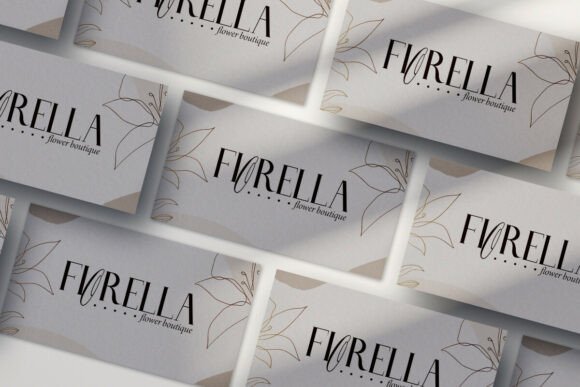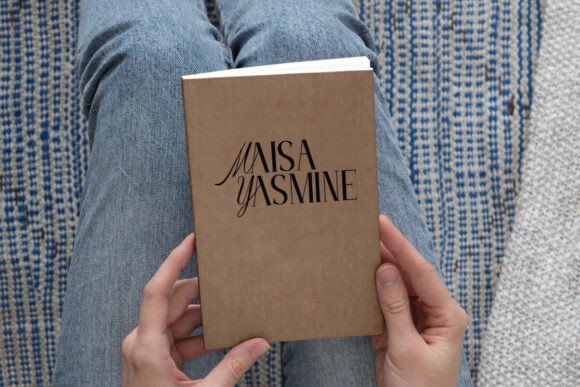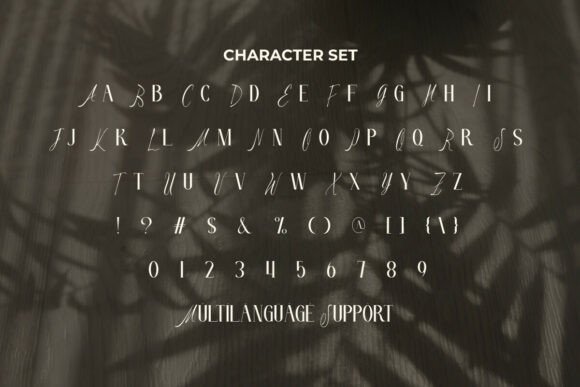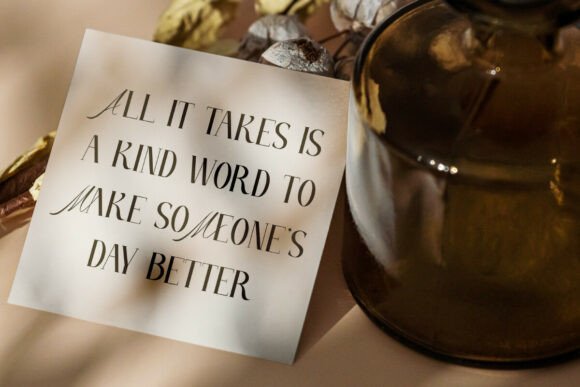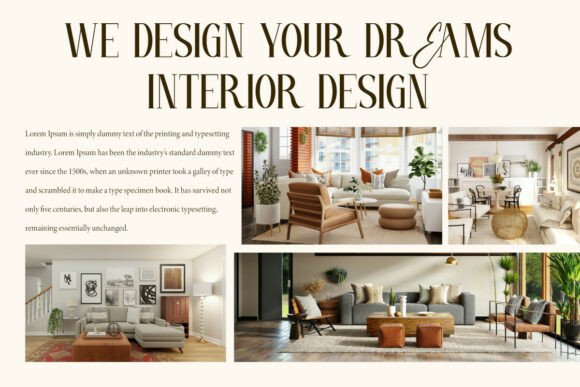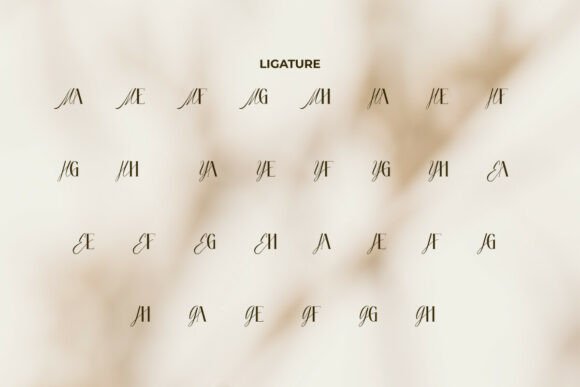
Introduction to Maisa Yasmine Font
Have you ever been stuck on a creative project, searching for the perfect typography to convey the emotions and tone you want to express? That’s exactly where Maisa Yasmine Font comes in – a stunning display font duo that effortlessly combines classic and modern styles to create a timeless elegance that’s hard to resist.
As designers, we know that typography is the soul of any design. It’s what makes a project truly shine and connects with our audience on a deeper level. That’s why having access to high-quality design resources like Maisa Yasmine Font is invaluable. This beautiful script font is perfect for adding a personal touch to your work, whether it’s crafting wedding invitations, branding luxury products, or designing social media content.
Key Features of Maisa Yasmine Font
- High-quality, elegant script font perfect for creative projects.
- Features a sophisticated, cursive design with intricate details, ideal for headings, titles, and quotes.
- Supports a wide range of languages, including Latin, Cyrillic, and Greek, making it a versatile design resource.
- Perfect for use in wedding invitations, greeting cards, and other creative projects that require a touch of elegance.
Honest Review: Maisa Yasmine Font
As a designer, I’m always on the lookout for high-quality fonts that can elevate my creative projects. Recently, I had the chance to work with the Maisa Yasmine Font, and I’m excited to share my honest review with you.
- The Maisa Yasmine Font is a beautiful, elegant script font that’s perfect for adding a touch of sophistication to your designs.
- The font is highly customizable, allowing you to adjust the size, color, and style to fit your design needs.
- The Maisa Yasmine Font is not suitable for large-scale headings or titles, as it can become difficult to read at larger sizes.
Overall, I’m impressed with the Maisa Yasmine Font. It’s a high-quality design resource that can add a touch of elegance to your creative projects. With its free download option and transparent background, it’s a great choice for designers of all levels. Just be aware of the limitations, and you’ll be able to use this font to its full potential.
High-Quality Design with Maisa Yasmine Font
The Maisa Yasmine Font is a high-quality design resource perfect for creative projects. Its unique style and transparent background make it ideal for graphic design, digital art, and other visual projects.
When to use: Wedding invitations, quotes, and creative titles.
Comparison: Great Vibes Font has a more elegant and refined feel compared to Maisa Yasmine Font, which is more playful and quirky.
Yes, the Maisa Yasmine Font supports transparent backgrounds, making it ideal for designs that require a high level of customization. This feature allows you to create unique and visually appealing designs for your creative project.
What is the recommended usage for the Maisa Yasmine Font?
The Maisa Yasmine Font is a high-quality design resource that can be used for a wide range of creative projects, including branding, packaging, and digital design. It’s recommended to use the font in conjunction with other design elements to create a cohesive and visually appealing design.